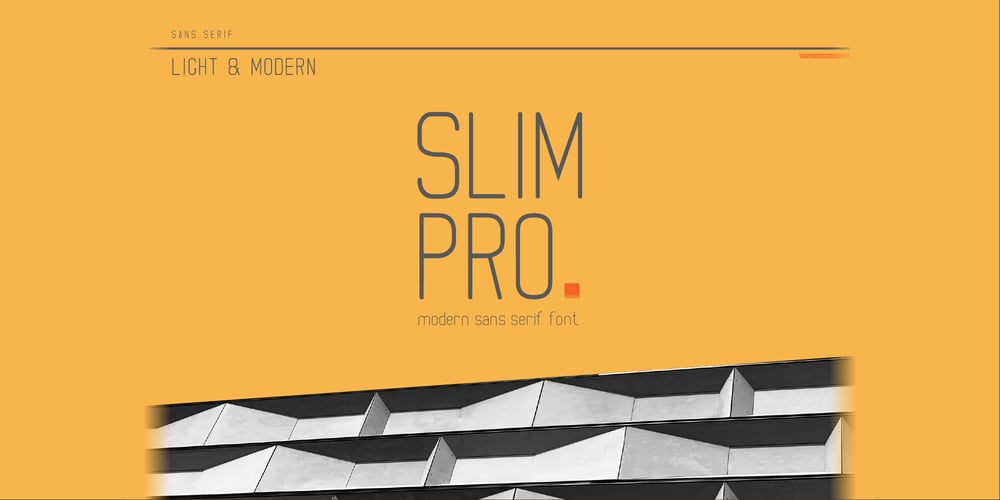
Slim Pro Font Family was designed by Wahyu Aji Prasetyo and published by WAP Type. Slim Pro contains 1 styles and family package options. This font is stylish, clean, clear, firm and still looks luxurious. Slim Pro is a fine and all round sans serif font. No matter the topic, this font will be a genuine asset to your fonts’ library, as it has the potential to elevate any creation.Slim Pro is a modern and futuristic sans serif font. The combination of futuristic and geometric elements renders a modern design.